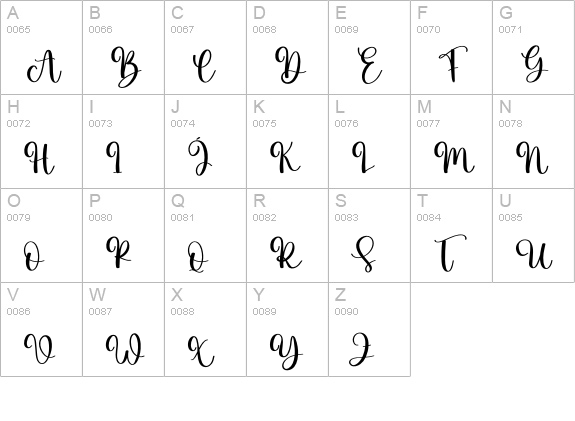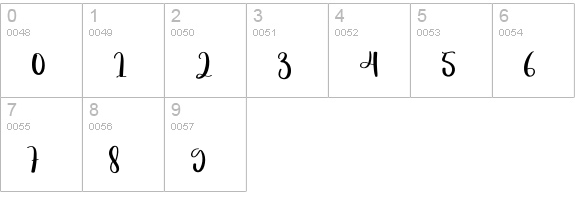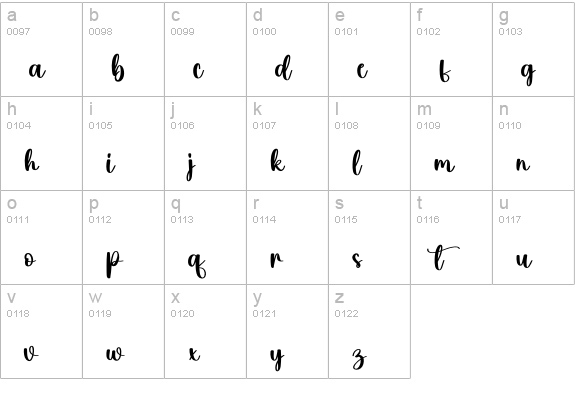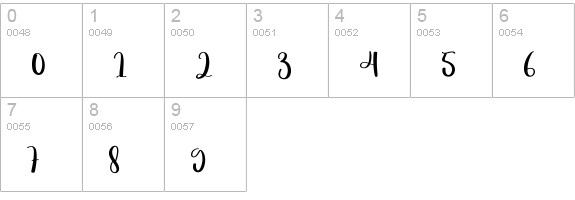
Branding Font Details
Branding is a free for personal use font in the Script > Handwritten category, designed by scratchones. It has been downloaded 32 times and is available for Windows, Mac and Linux.
Introducing the stunning Branding font, a versatile typeface that exudes elegance and sophistication. Perfect for creating impactful logos, branding materials, and editorial designs, this font combines classic charm with a modern twist. Its sleek lines and stylish curves make it a standout choice for any project.